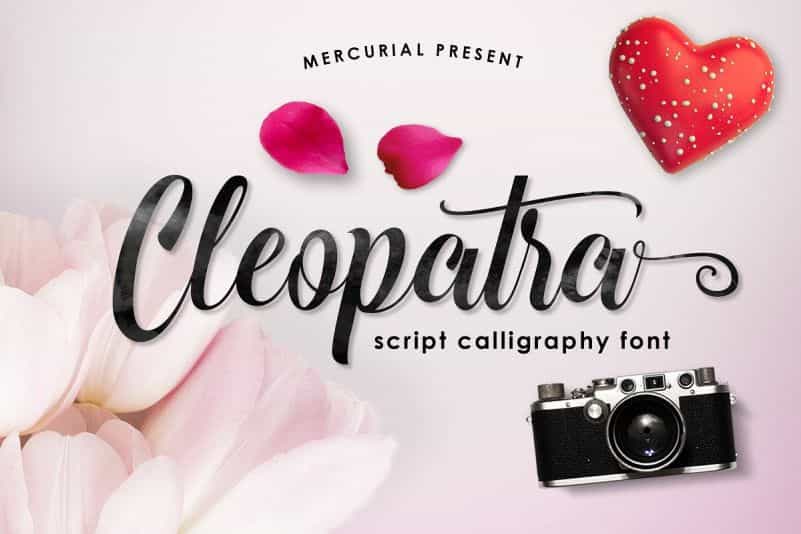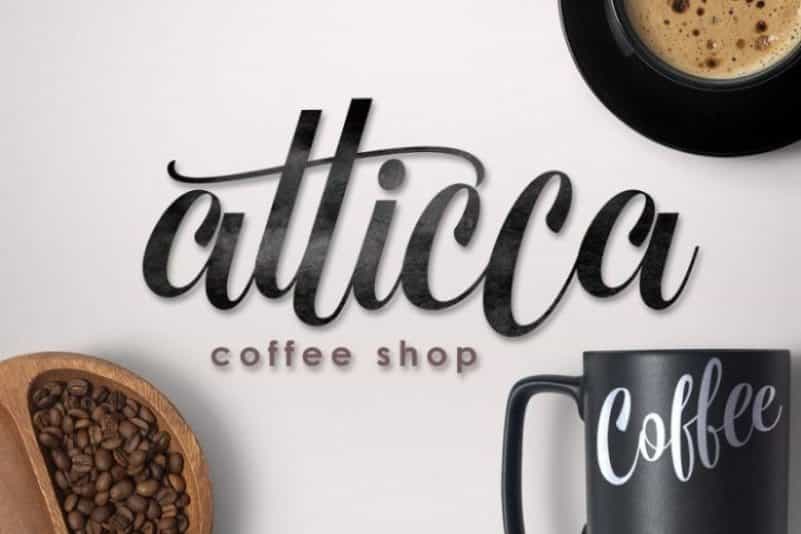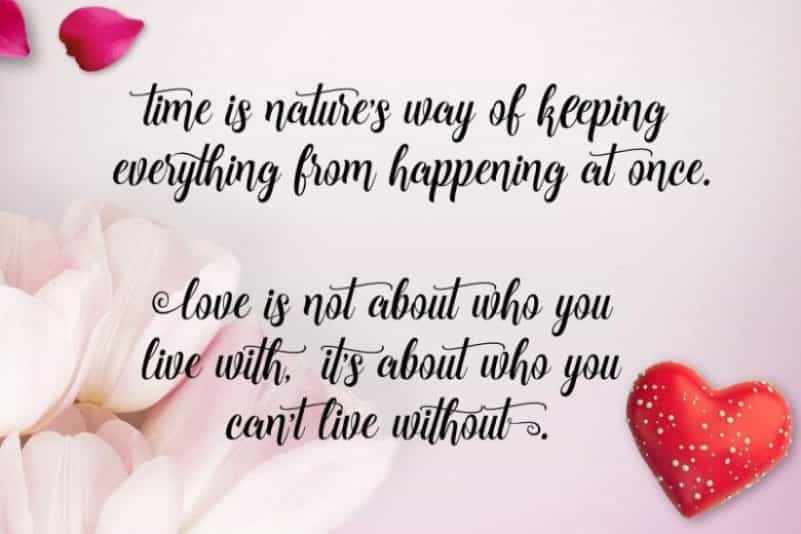
Introducing Cleopatra Font. This is one of the most beautiful and elegant forms of writing which is usually done by hand. The font is very dark and has many fancy letter connections or ligatures. It’s give a reasonable measure of stylish choices for most letters! This script is called Cleopatra Script and is created and posted by MERCURIAL.